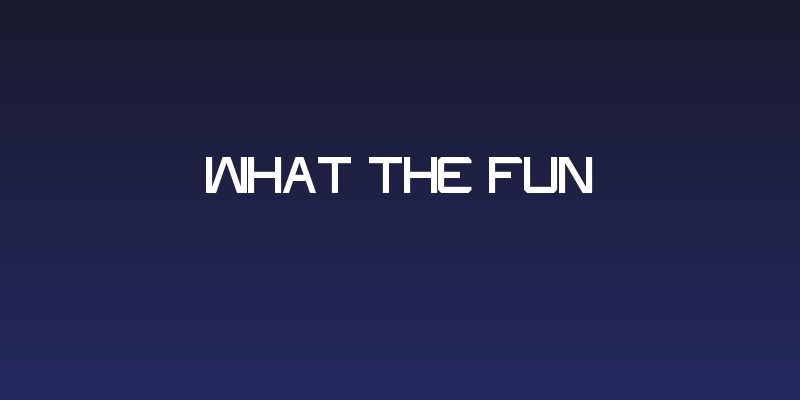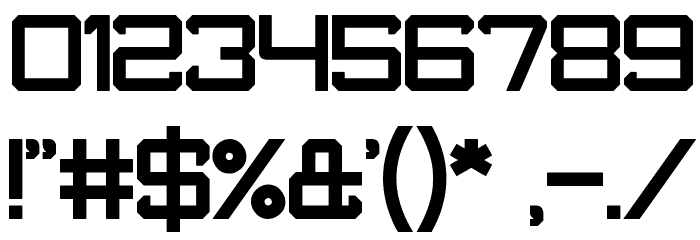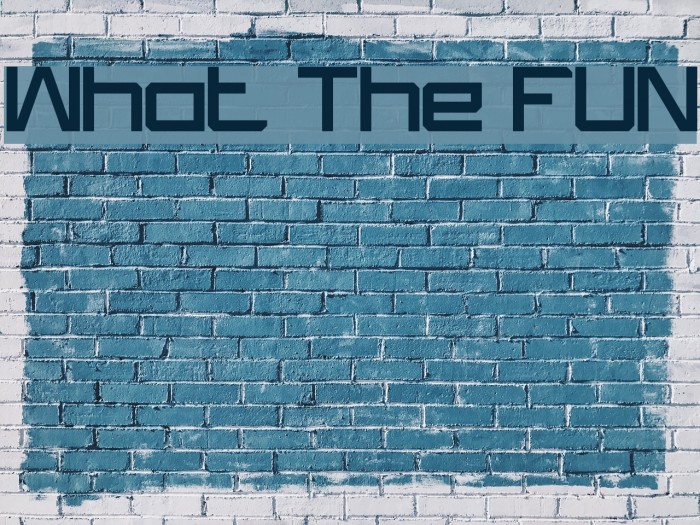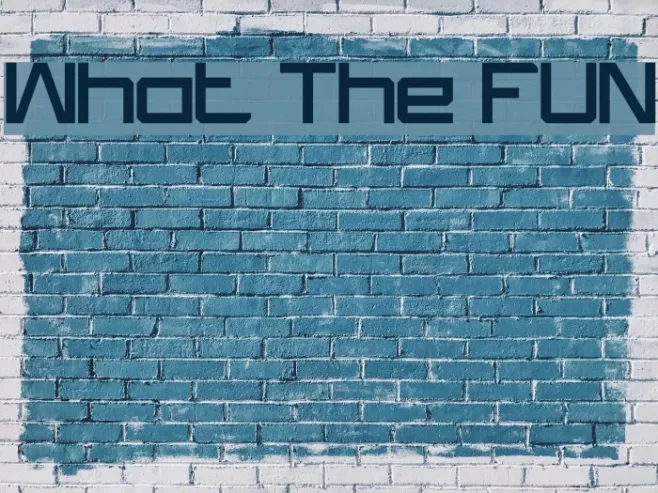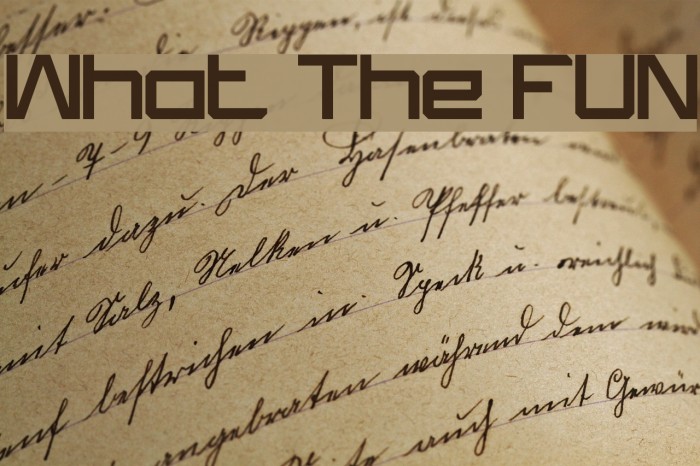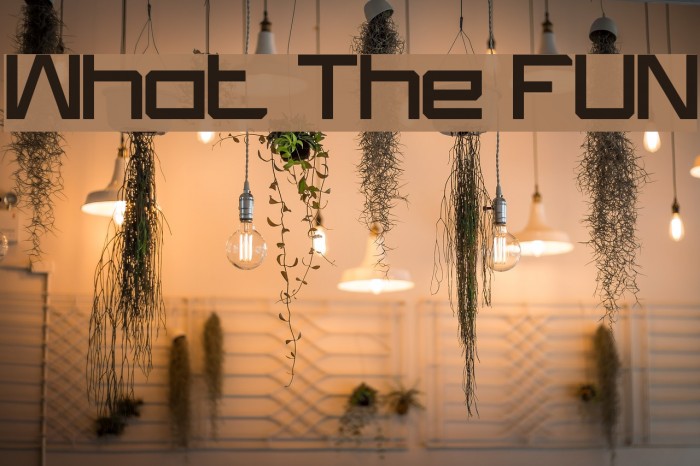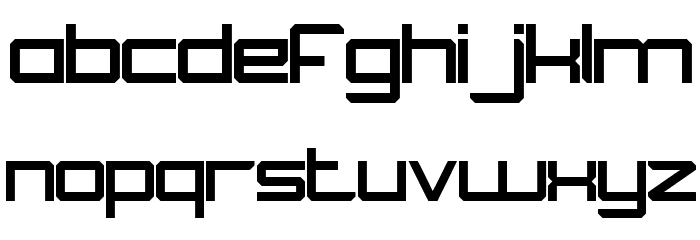
What The FUN Font
What The FUN Description
This font features a bold, geometric design with a futuristic and digital aesthetic. The characters are constructed with straight lines and sharp angles, giving them a modern and tech-inspired look. The uppercase and lowercase letters maintain a consistent style, with a uniform height and width that creates a cohesive appearance. The numbers and special characters follow the same design principles, ensuring a seamless integration across all glyphs. The font's structure is clean and precise, making it suitable for projects that require a contemporary and innovative feel.
| Proposed Projects | Ideal for tech-related branding, digital interfaces, video game graphics, and modern advertising campaigns. |